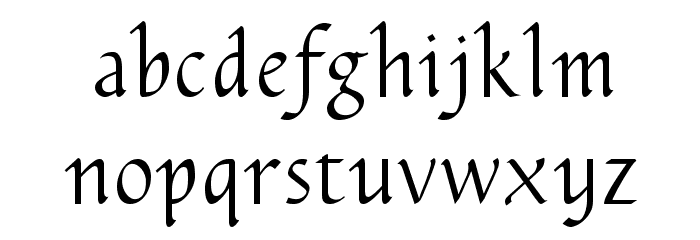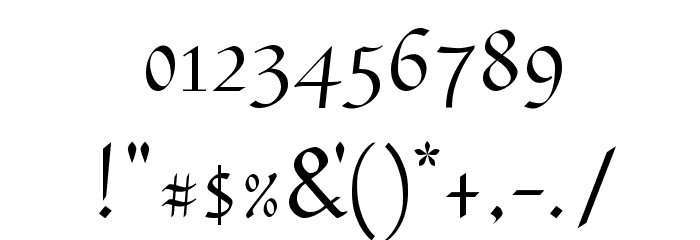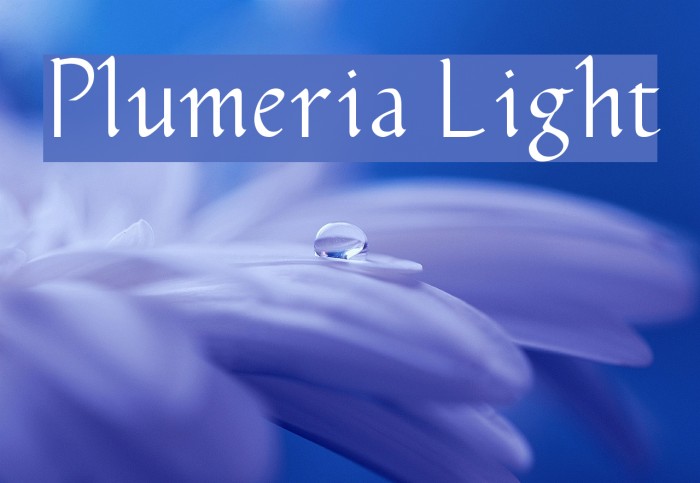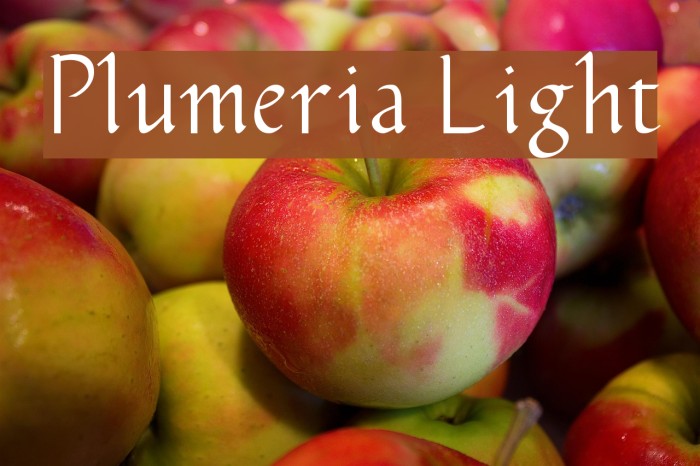
Plumeria Light Font
This font features a delicate and elegant design with a light and airy feel. The characters have a subtle curvature, giving them a graceful and flowing appearance. The uppercase letters are slightly taller with a refined structure, while the lowercase letters maintain a consistent style with gentle curves. The numerals are clean and straightforward, complementing the overall aesthetic. Special characters are thoughtfully designed, maintaining the font's cohesive look. This font's light weight and artistic flair make it suitable for projects that require a touch of sophistication and elegance.
A delicate and elegant font with graceful curves and a light, airy feel.
- Proposed Projects: Ideal for wedding invitations, elegant branding, fashion magazines, and artistic projects.
- Overall Style: Elegant
- Use Case: Headlines, Invitations, Branding